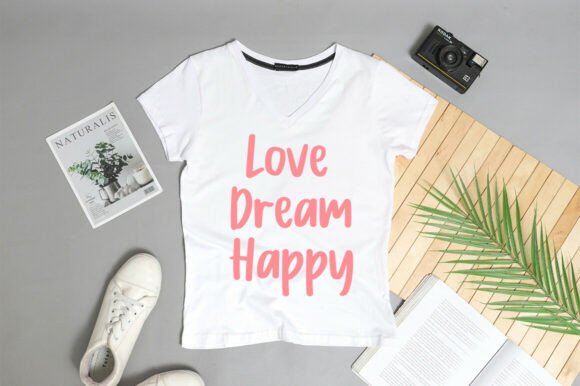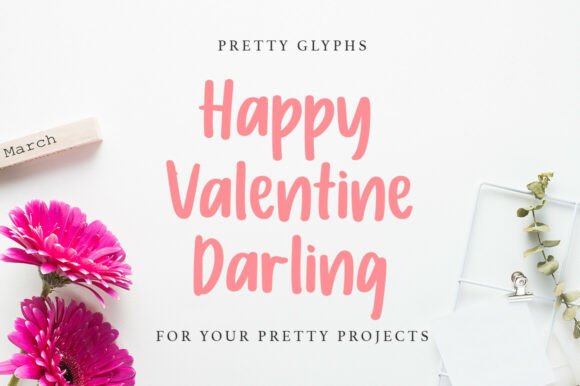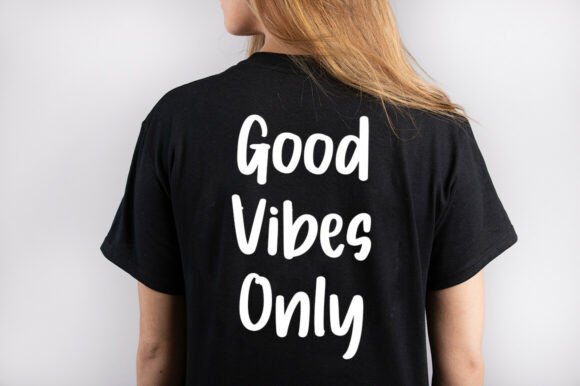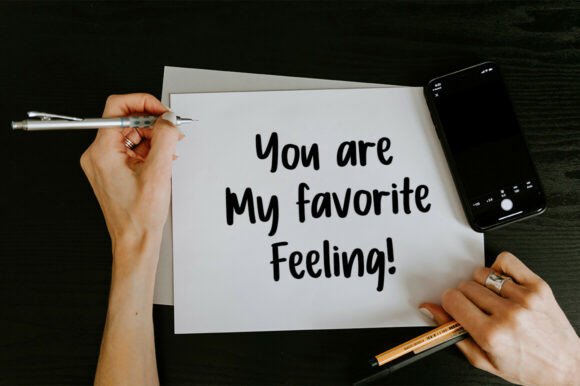
Introduction to Quincia Font
Quincia is a bold, rounded handwritten font that radiates friendly confidence and a “bouncy” personality.
With its thick, uniform strokes and smooth, pill-like junctions, Quincia offers a modern take on classic bubble lettering It features an irregular baseline that gives every word a rhythmic, playful movement, making it ideal for food and beverage packaging, upbeat children’s branding, and bold social media graphics.